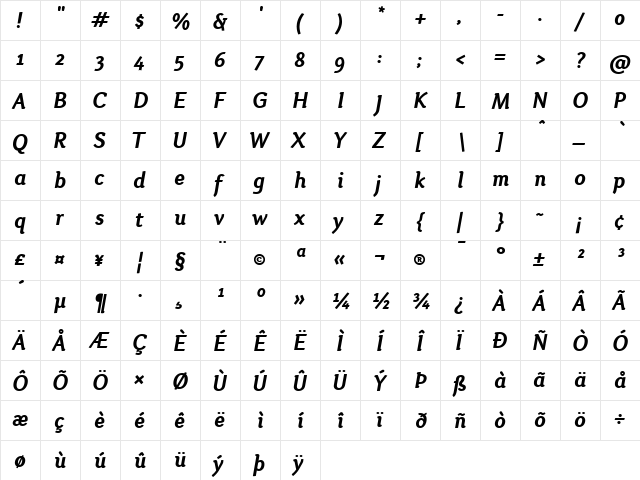
Otari Bold Italic
| Foundry | Travis Kochel |
| Designer | Travis Kochel |
Design Context for Otari Typeface
Otari takes a measured approach to typography — its balanced proportions and neutral character make it a reliable workhorse for both digital and print work. The dynamic lean of this cut emphasises speed and emphasis in any layout. Its bold stroke weight gives it real presence on the page.